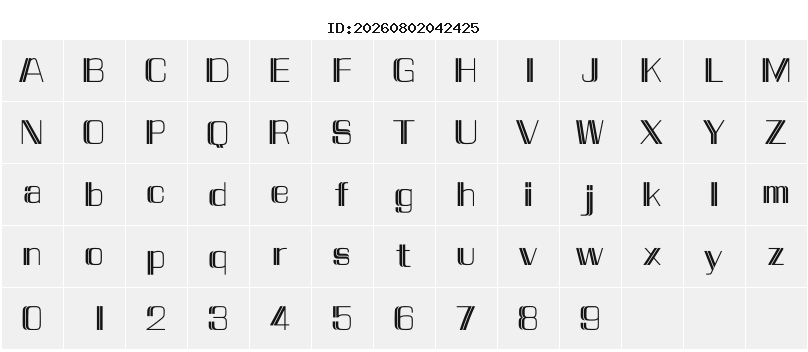
MStream HK Bold Preview
About MStream HK Bold.ttf
MStream HK Bold.ttf is a modern, elegant sans-serif font designed for ultimate readability and visual harmony. Perfect for branding, headlines, web design, and print materials.